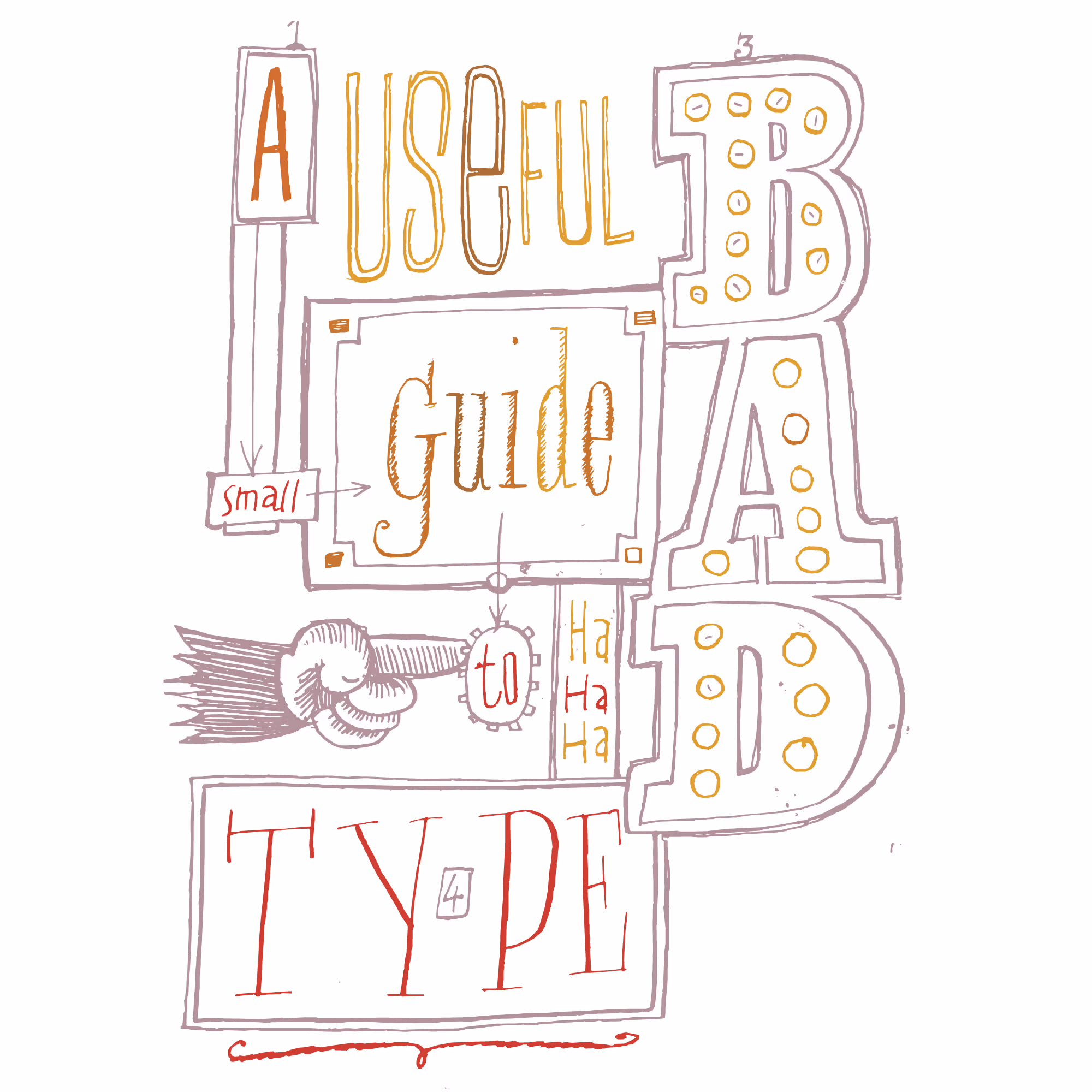
A Useful Guide to Bad Type
Ask people about bad typefaces and you’ll get opinions. Which typefaces are good, bad, evil, holy, done by monsters, published by saints. But when you look into the reasoning behind the arguments, it appears to be a complex issue in which black and white opinions are not helpful. Not all typefaces can do everything. Some typefaces are specialized and do one thing really well. Others are more generic but don’t excel in anything particular. Fortunately this is not a typography specific problem, but rather the way things work in design. This text is a short list of criteria that can be applied to type (by graphic designers, typographers and type designers) in order to give an idea of what the good & bad discussion can be based on. It is wholly subjective and unscientific but it and based on my experience as a professional type designer. Your mileage will undoubtedly vary.
Good and bad
Design is the process of creating something new. But the term is also used to describe the end result, ‘a good design’. By studying the design process itself, the designer can improve on the odds of making something good. Every now and then reasonable things are made by accident. But if you have to pay the rent, it’s nice to be able to rely on your skills. So let’s look at the things that are involved in the design process as well as the aesthetics.
Type design has to deal with many restrictions and limitations which are not aesthetic in nature. It’s the designer’s job to make sure that these limitations are adequately dealt with. Some of them will be easier to solve than others: every design is a network of decisions and compromises.
It is possible to teach the basics of the discipline and introduce the tools and materials over a period of one or two years. A deeper understanding of form and the influence of the drawing tools on curves can take longer and usually follows naturally.
Where to start? Taste? that would be an endless battle with vague arguments. Let’s have a look at construction, contrast, weight, strokes, logic and consistency. Does the typeface show internal consistency? Are similar design problems solved in similar ways? (in any order). Here are the basic parameters of type design. Can you think of more? Of course!
Conflict
Letters need to be similar enough to create rhythm and words. At the same time letters need to be different enough in order to distinguish them from each other. These two forces point in opposite directions and it’s up to the designer to balance them.
Shape
The shapes themselves can be wrong. Lumpy. Not fluent. A lack of ideas or guiding principles can do major damage. Do the weights and widths progress in a way which makes sense? Is the family set up in a way which makes sense? Are there any really bad characters? Or really good ones? Do things stand out? Is the character set complete? Do less common combinations (diacritics for example) work as well? How does the typeface look in a column of text?
Revival
When the typeface is built after historic models, are the sources interpreted well? Is there a point to this typeface? Are there more typefaces in this particular part of design space? Is it an improvement on any of them?
Style in the broader sense could be the art of finding common threads in seemingly unrelated things and defining groups for them. It’s all about connections and meanings when the items in the group begin to tell a story. When a typeface is bad for its style, perhaps it’s not the typeface’s fault, but something that the typeface relates to. For instance, Helvetica all by itself is a solid design without too many problems (as opposed to Rotis for instance, which is awful in all its variations). The problem with Helvetica is that it has become part of a particular style favored by large, often bureaucratic, organisations. Helvetica is not chosen for its specific typographic qualities, but out of a need to belong to a particular kind of institution, or worse, the inability to make any other kind of decision.
Any overused typeface will cause two effects. More of the same typefaces to be produced for everyone wants a piece of the new pie. Design concepts are diluted and eventually the added value of yet another (say, large sans serif typeface or another dirty typewriter) approach zero. Users of type will also start looking for other typefaces in order to distinguish their work from the rest.
Is the typeface suited for a particular language? For instance, German uses capitals in the sentence to indicate nouns, so you see them a lot in a column of text. Typefaces with relatively big or heavy caps will affect the text. The language might bring letters together in ways which were not thought of by the type designer.
Oh yeah, the readers
The eyes have it. Readers get used to the typefaces that they read frequently. Whether they’re particularly good or not, the habit is there. Ambitious type designers can try to improve on it but the comfort zone of readers is limited and changes very slowly. A typeface for a newspaper might not be up to modern standards, but change it and readers will com plain. Newspapers are conservative typographers because they know their readers.
Different tools through the ages projected their own limitations on the typeface. Sometimes these limitations are caused by the nature of the tool itself which can’t be changed without destroying the tool. But the tools are artificial objects too and when the influence of the tool is unwanted, the craftsman has always changed and adapted the tools to make them function properly. Here is a short overview of tools that make type (not to be confused with tools to reproduce type):
Various historic introductions to writing, drawing and making type start with cutting pens from feathers. A blunt knife cuts bad pens from feathers (toolmaking tools). A broad nibbed pen makes different marks on paper than a flexible steel nib or a sign painter’s brush. Regardless of skill and experience, choosing a tool is already a choice for shape, i.e. a design decision. Not choosing a tool is a choice as well.
Digital tools made some things in type design easier but they also introduced new difficulties. It was easier to see how a shape performs in different sizes, but along came math, splines, control points, tricky, springy stuff. So, drawing type on screen is some thing you have to learn: you have to get a feeling for the relationship between the form and the position of the points that control the curve.
Then there is the influence of the tool itself. Things that are easy to do in a program will get done more often, things that are difficult to do will get done less, regardless of whether they’re important or not. The things that software can and can’t do are determined by things like marketing, engineering skills, budgets and resources. Things that are important in design are determined by the problem and the solutions that the designer is cooking up. That means that at some point the designer is going to need functionality in the software that wasn’t provided by the developers.
Write your own!
Rather than waiting for someone else to come to the rescue, it can be better to develop your own software. Even with limited programming skills it’s possible to get small scripts and programs to do your bidding and solve problems. See RoboFog, RoboFab, TTX, FontTools, FontLab and FontForge.
Some ideas are too complicated to be executed with normal tools. Does that mean the idea is invalid? Perhaps it just means that the programmer didn’t think of your idea before you did. But that’s more or less what designers are paid for to do, so expect your tools to be good but sometimes not good enough. Creating a tool to execute the idea means innovation. Compromising the idea to the tool leads to stagnation. In interpolation the designer really feels the limitations of the system. An interpolated typeface will usually have two, four, or eight masters. The interpolated weights are influenced by controlling the masters. When the masters are too different, the interpolated weights will look bad. So in order to make the interpolation work, the masters need to be similar, which by definition they shouldn’t be. The compromise means that the extremes aren’t so extreme after all. That doesn’t make them automatically bad, but typefaces like these risk becoming bland. Solution: more complex interpolation systems which include more masters.
The immediate effect of writing tools is that there is a less time left to do type design. Sometimes this is seen as a negative thing. On the other hand, it turns out that a fair amount of time in unassisted, manual (but digital) type design is spent trying to fix things that were not done well by the default tools. Even if writing a script takes as long as doing something repetitive by hand, it is a more rewarding process. Time has an influence on the overall quality of the typeface. Perhaps the designer should have spent more time on the basic design, and less on expanding the family over a range of weights or styles. Or maybe it just took too long to get done and the fad has passed.
Bad typography
Then, even when all fonts are properly licensed, sourced, versioned, prepared, and tweaked, there is the moment when the anxious designer is about to begin specifying a line of text in a specific typeface, on some sort of medium. This is the moment all type designers learned to fear – all sorts of things can go wrong and perfectly reasonable type can go bad. There are almost no limitations to people’s talents to find new ways to screw up:
- type too small or big
- set too tight or too wide
- bad color combinations
- bad copy writing
- inappropriate justification
- inappropriate hyphenation
- wrong font formats
- clueless operators
- encoding errors
- unnoticed fonts substitution
- Though bad typography certainly is an important factor in turning type to the dark side, the subject has been extensively documented already. Further reading: any book on typography.
- Examples: all the funny holiday pictures type designers show each other on type conferences.
‘That’s too technical for me’
Type and technology belong together. Type is not a purely aesthetical exercise. Neither is it a purely technical problem. The technology brings the type to life but at the same time imposes its (arbitrary) limitations to the typeface. At some point in history it was the quality of the material that the type was made of such as various alloys and different kinds of wood. More recently it was the mechanics of the typesetting machine that imposed limits to spacing and the size of the character set or the shape of the letters. These days it’s software and bits. The designer of the typeface needs to be aware of the limitations of the technology chosen to produce the type, and either avoid them, or better yet, turn them into assets.
Favorite limitations through the ages
Technical limits have always been a challenge to type design. Some typefaces solve them better than others. They all have one thing in common: all limitations will eventually be solved, become irrelevant or be replaced with some other limitation.
Limited spacing units: 48, 100, 1000, 2048, integers. The number of letters on a casting matrix. The need to have identical set width for roman, bold, and italic variants of characters in a single (Linotype). The requirement for a hacksaw when kerning.
Some of the problems with type from imagesetters are related to operating the machines. Maximum of 4 fonts and 2 sizes in one text (for instance Linocomp). Single character master for all sizes (most photosetters, and most current digital systems too). Stop imagesetter to change discs (Compugraphic) or lenses. Total blind typesetting in one single typeface with a very dodgy spacing system (Berthold DiaType) Or how about the various distortions caused by fast rotating negatives, flash bulbs, and curved mirrors.
The one byte, 8 bit, or rule of 256. “Surely no one will need more than 256 characters in a font?” Or need more than 256 fonts in a system? or more than 256 colors in a document? 8 bit is a favorite limit for programmers. The resolution of a screen (72 dpi). The resolution of a laser printer (300 dpi, Apple Laserwriter) 1000 kerning pairs (early applications). Truetype font families have to conform to Regular, Italic, Bold and Bold Italic weights. The 31 character limitation for the menu name of a font. Glyph substitution is only allowed to reduce the number of glyphs in a string (OpenType). Unicode support in Quark Xpres. Integer coordinates in Postscript and Truetype font formats (ok, the specification says it could be done, but none of the tools support it). The required presence of all letters on a codepage even though they might not be needed. Several quite different TrueType rasterizers in a single operating system.
Fonts are a very basic resource in modern operating systems. Fonts are needed at every level of operation, not just in the layout and illustration applications, but also at the deepest, almost subconcious stuff that computers do. Every part of the operating system needs reliable access to fonts, so if access is hindered in any way, or something is just a tiny bit different from what is expected, it’s possible that bad things happen.
Bad Fonts
For instance it is possible to construct a Truetype font in such a way that when it is installed it will crash the rasteriser. Quite often this will take the rest of the system down as well. This can be a nightmare to solve when the user has lots of fonts installed. The faulty font is bad but once removed the system quite often works again.
Even with monster processors and gigahertz computing, operating system developers still quote that it is too costly (they mean that it will take too much computing power) to monitor the functioning of fonts. A logical solution would be to ‘sandbox’ the rasteriser, to separate it from the rest of the operating system so if it crashes it won’t affect the rest. Sandboxing is a normal procedure to make code safer. For instance Java works that way. But folks who build operating systems don’t usually listen to folks who build fonts, sadly.
Font management applications (like ATM DeLuxe, Suitcase etc.) sometimes offer font doctoring services, an attempt to locate problematic fonts and help users. Unfortunately the definition of ‘good’ and ‘bad’ are muddy. They assume all fonts are built to the same standard. Non-standard fonts are marked as ‘bad’ even though they are probably fully functional. Other critical problems go unnoticed. Fingers are pointed, frustrated customers calling the wrong people.
Ambiguities in the original Postscript Type 1 font specification (‘The Black Book’) caused different font generating applications to build slightly different Type 1 fonts. This came back to haunt Adobe when they started developing Adobe’s Type Manager (ATM) as the rasteriser had to treat some fonts different from others, despite all of them being for matted as Type 1. The fonts weren’t bad as such as they did conform to the standard. But the standard itself was ambiguous and the software needed to solve the mess.
The stage where the typeface is ordered to perform has a huge influence on its shape. Type engineered for a particular venue, press, screen, size, or paper, will probably look bad when taken out of context. Quite often designers use this effect on purpose to emphasise some stylistic quality. A poster with Bell Gothic in 6000 point can look good even though it was intended for 7 point phone books. Or think of Emigré’s early bitmap fonts.
In some cases type goes bad because they were picked for the wrong job. Nothing wrong with the font itself, it’s just an awkward choice.
For instance, a typeface (or a category of typefaces) that has become a symbol. Fraktur type has become the standard typeface of anything to do with the Germany during the Second World War. Just have a look at the Discovery Channel when it’s ‘Hitler week’. The actual typographic choices of the period are not really considered even though a lot has been written about them. Sometimes even calligraphic typefaces of English origin are used as Fraktur faces.
Type applied in the wrong historic context. Some folks collect typographic anachronisms in films and television. Mistakes usually happen in period movies where headlines, street and shop signs are set in typefaces which weren’t available at the time. Not that very many people would notice or indeed care, but it is nice to see when it is done right. Hey! Movie people! Get it right! Hire a type designer!
Legal
This is about some of the legal aspects of bad type. The area of licenses, contracts and piracy, nasty stuff that gets people in court for all sorts of reasons.
For the graphic designer: have you bought all the fonts you use? Honestly! Do you know where all the fonts on your computer come from? These issues are not made any easier with applications that dump dozens of fonts during installation. It’s difficult to keep track of the origin of all fonts that are available in the design studio. However, you know it when you’re calling someone else for a copy of a font.
Unfortunately a pirated font doesn’t look any different from a legal version. But to the designer choosing the pirated font, it should make a difference. Caring about the source of all media, images, objects, materials, and data in a design project is a sign of a professional. Respect for intellectual property rights is what makes the design industry possible and designers themselves have to be aware of their responsibilities (‘do unto others…’). So, an advertising campaign using a typeface which neither the agency nor the client paid for is bad for business. Not only is there a big chance that the type publisher will discover it and charge a premium for straightening things out, the agency stands a fair chance of losing the account when the client is faced with legal issues. The practical nature of fonts make it so that frequently users of fonts (in any part of the design food chain) assume privileges that they don’t actually have. Often one says: ‘I need to have this font because I have to work with it.’. Taken by itself, this could be a valid statement since it expresses the high value of the typeface to the user. But it usually implies that the fonts will be used illegally because for some reason the user is incapable of converting the ‘have to use’ to ‘want to license’. Which is odd because when it rains and you really need a car, you wouldn’t consider stealing one to get home.
Ideas, inspiration
For the type designer: did you think of all the details in the typeface or did they come from somewhere else? Do you know? Do you care? What do you do?
For large corporate style projects, it can be useful to create special customised versions of existing typefaces. As long as the originals are credited and properly licensed this is not a problem. However sometimes a typeface is just modified a tiny bit and sold as something new under a new name. Remember to request documents of provenance.
A golden rule in all rights management should be that in case of any doubt of what has been agreed upon, the author of the work should be granted the benefit. No rights are assumed unless both parties agree. No rights can be taken without the designer’s permission. No sale without a signed contract!
But even within the type industry itself, there are still some companies around that sell typefaces without binding contracts with the designers of these typefaces. In some painful cases when designers complain, or even attempt to discuss the problems, they get drawn into expensive legal proceedings which serve no other purpose than to abuse the legal process and cause major financial and professional damage. Thankfully these publishers are exceptions to the norm and most business is conducted legally and ethically.
Bad deal
18,000 fonts on a CD bought for €2 can not be legal.
Bad idea
Grafting one set of metrics on another typeface. Years ago now, Microsoft commissioned Monotype to create a set of alternate fonts which matched the widths of the original LaserWriter fonts. The widths of Arial used to match those of Helvetica. Arial did not improve much in the process.
Right out of school, all fresh designers are kitted out with all of the school’s software and fonts. Of course they will buy the software, cool laptops, phones and fonts, ‘when they’ve started to make some money’, which, let’s be honest, can takes ages. Design schools should make a bigger effort to teach students about the economics of a design practice. How to bill and how to make a budget for investing in tools, machines and software.
How silly some of these concerns will seem in a couple of years. Hinting! Embedding! Technology will continue to be a solution as well as a problem. Faster computers will be built and remain almost affordable. New methods of reproduction of text will continue to challenge typefaces to evolve. The distinction between paper and screen might become irrelevant in some cases. However, type tools will remain buggy. Type designers will, every now and then, prove their value to society by drawing a decent piece of type. Piracy will increase in quantity and speed, but graphic designers and typographers will continue to spend money on fonts.
People will read.
This isn’t to establish standard criteria for type design, typography or technology, but to offer you some arguments to make up your own mind. Prove me wrong. You will still find contradictory opinions for any typeface and great differences in opinion between typographers, designers and normal people. There is no golden rule to type design and typography. There are just millions of small, localised would-be rules, curiosity and experience to help you. It’s a mess, but it doesn’t change much once you know the way. Typography and type design involve a lot of common sense and practice. As a result there will be lots of nonsense and clumsy work around, which will make it easy to stand out. Look at the shapes. Pay attention to what you’re doing. Take care when putting together text, type, content and medium. It doesn’t take a lot of time and it’s not complicated but the effects will be visible and appreciated.